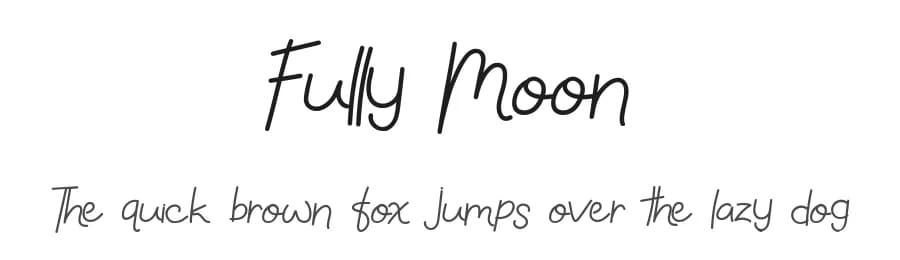
About Fully Moon Font
Fully Moon Specifications
| Font Family | Fully Moon |
| Full Name | Fully Moon |
| Version | 1.051 |
| Glyph Count | 223 glyphs |
| PostScript Name | FullyMoonRegular |
| Designer | Bayu Suwirya |
Fully Moon supports 213 languages.
Fully Moon Font is a script font that shines as a display or heading face. Pair it with a clean sans-serif or serif font for body text β the contrast creates a clear hierarchy while the two styles stay balanced and easy to read.
Fully Moon Font